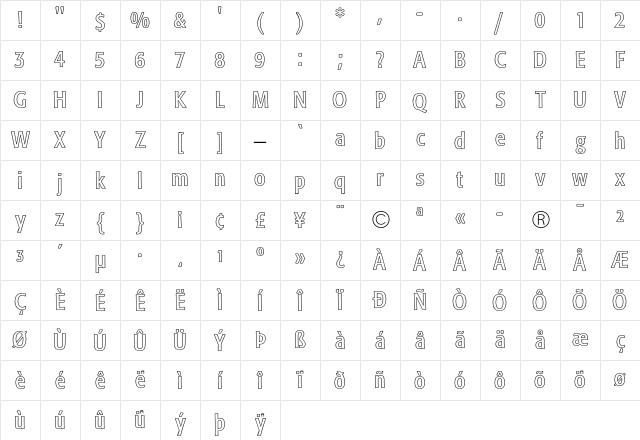
Formata Condensed Outline Free Font
Formata Condensed Outline
Style: Condensed Outline
Design Context for Formata
Formata is built around its visual character rather than neutral utility - its distinctive forms are designed to make an impression at display sizes.
Font Pairing: Pair with a clean neutral sans-serif for body copy to let Formata's character lead without overwhelming the composition.
Pro Tip: Use Formata exclusively at display sizes - it was designed to be seen, not read at length. Let a neutral companion handle body copy.